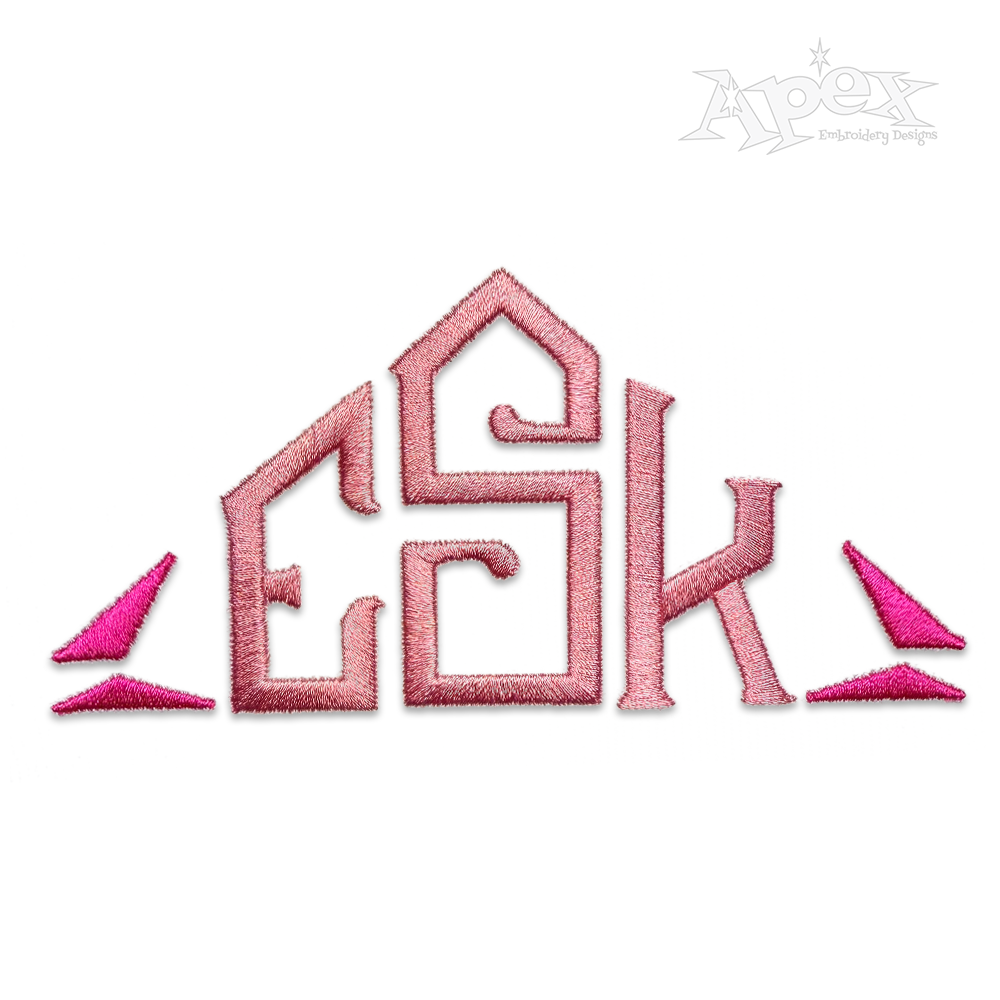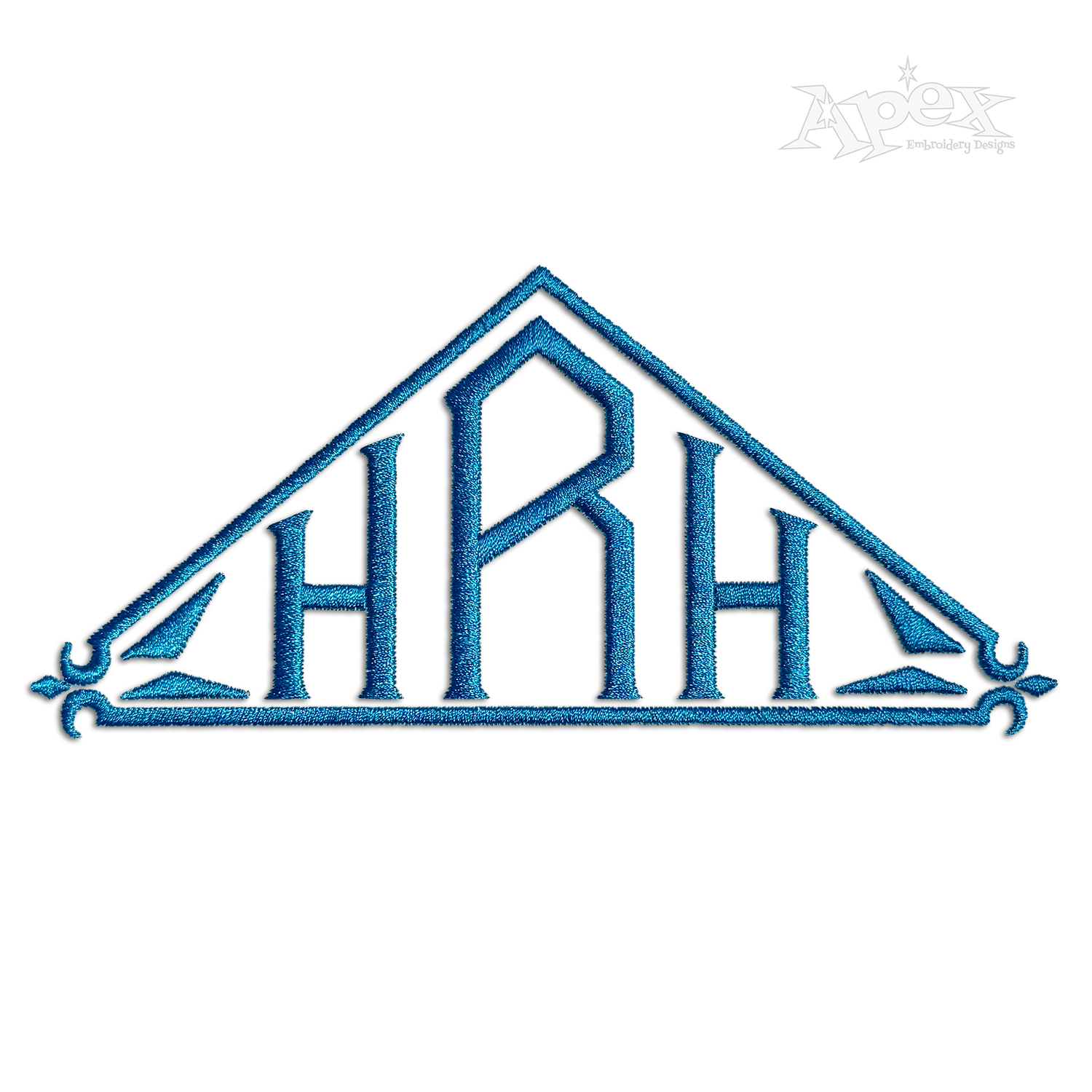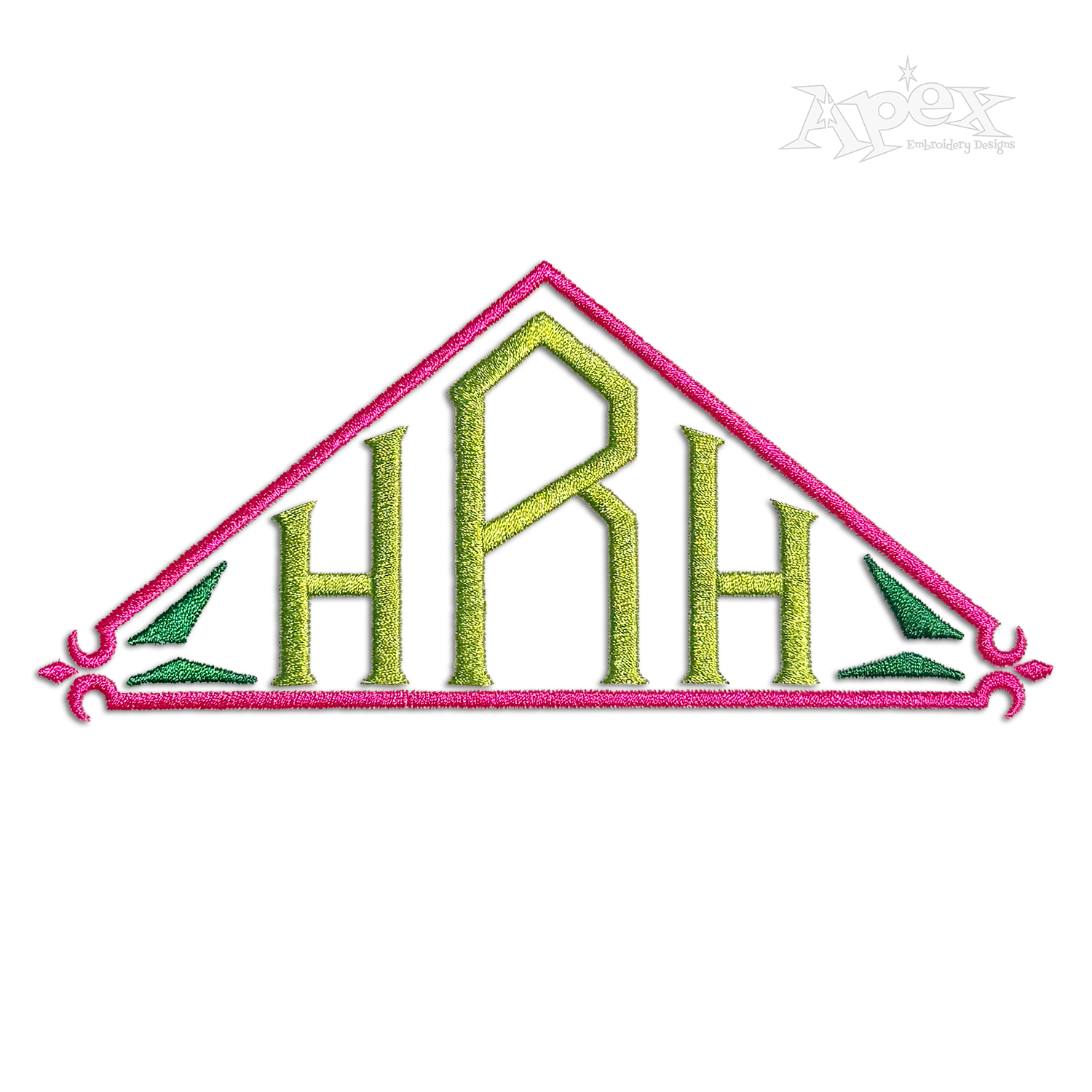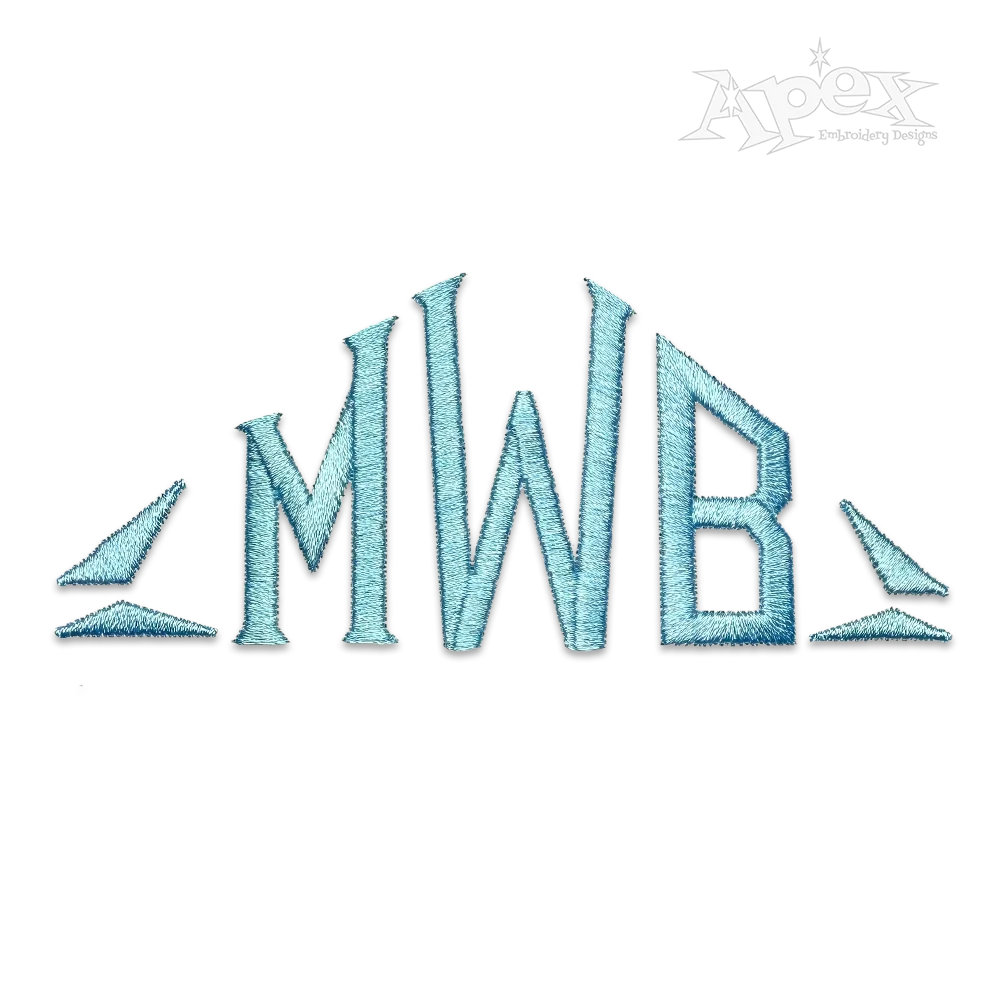
Triangle Monogramming Embroidery Fonts
Born from an architectural fascination with crisp mid-century angles and the balanced harmony of pyramid crests, the Triangle Monogramming Embroidery Font brings a structured, elevated presence to contemporary personalization. We envisioned a monogram that breaks away from traditional swirling flourishes, opting instead for a bold geometric silhouette that commands attention while honoring bespoke artisan traditions. Each character has been digitized to interact seamlessly with its companions, creating an iconic triangular tapestry of rich, light-catching satin stitches that turns everyday textiles into tailored, modern heirlooms.
- 4 Distinct Font Sets: Thoughtfully grouped configurations featuring specialized left, center, and right letterforms designed to converge into a flawless triangular contour.
- Bonus Coordinating Frame: Includes the matching geometric triangle frame designed to border and accent your finished monogram compositions.
Project Ideas for Triangle Monogramming Font
The structured geometry of this satin stitch alphabet brings a sophisticated, masculine-leaning or modern minimalist aesthetic to an array of bespoke embroidery projects:
- Luxury Table Linens & Cocktail Napkins: Stitch crisp 1-inch or 2-inch monograms into the mitered corners of Belgian linen napkins for an ultra-chic dinner party setting.
- Bespoke Resort Wear & Cabana Towels: Embellish heavy terry-cloth pool towels, linen button-downs, and canvas yacht totes with a bold 3-inch emblem.
- Heirloom Bedding & Euro Shams: Center a 2.5-inch or 3-inch framed monogram on high-thread-count percale shams or duvet covers for an understated five-star hotel finish.
- Personalized Gifting & Groom Accessories: Add an architectural touch to men's waffle-weave robes, weekender duffels, leather dopp kits, and golf towels.
- Bridal Party Keepsakes: Craft cohesive, fashion-forward cosmetics pouches and getting-ready lounge sets with tailored three-letter monograms.
Achieving the perfect balance with geometric monograms relies on intentional placement that complements the garment or textile grain:
- Corner Diagonal: For dinner napkins and pocket squares, align the base of the triangle parallel to the mitered edge, pointing the apex inward for a classic architectural corner anchor.
- Center Chest: Position the 2-inch or 2.5-inch monogram centered 7 to 9 inches down from the shoulder seam on tailored polo shirts, plush robes, or crewneck pullovers.
- Centered Sham Display: On decorative pillow shams, align the geometric frame dead center to serve as a stately focal point in master bedroom retreats.
- Cuff & Hemline Details: The 1-inch size shines as an understated bespoke hallmark when placed just above a sleeve cuff, jacket hem, or tote pocket lip.
Triangle Monogramming Font Craft & Letterform Details
Digitizing a sharp, three-sided monogram requires exceptional stitch architecture and tension mastery. As the letterforms taper upward toward the central apex or outward along the lower baseline, standard stitch patterns often bunch or pull. We meticulously hand-mapped the satin angles of each character to glide along the natural contours of the geometric frame, ensuring the satin stitch sheen flows uniformly without thread buildup at acute intersections.
Beneath the lustrous top stitching lies a dual-layer underlay foundation engineered to gently loft the satin columns while stabilizing the fabric weave against distortion. Whether stitched onto airy linen hemstitch or thick terry cloth, the letterforms preserve their razor-sharp diagonals and flat baselines. Paired with the tailored framing element, this font delivers crisp, heirloom-grade results that reflect the highest standards of the digitizing craft.